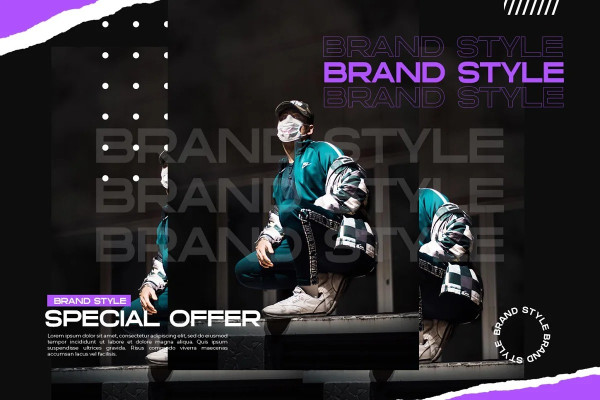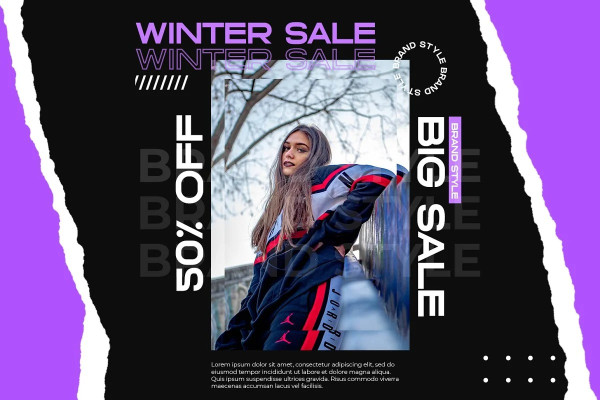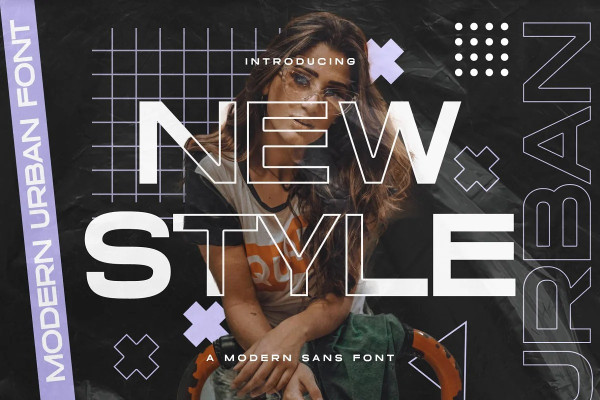
New Style Font
New Style Font – Modern Sans Opentype Font inspired by the famous minimalist logo perfect for the purposes of designing templates, brochures, videos, advertising branding, logos, invitation, layout design, elegant crafting, beauty design and more.